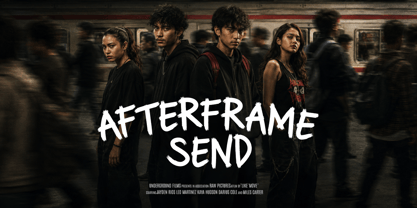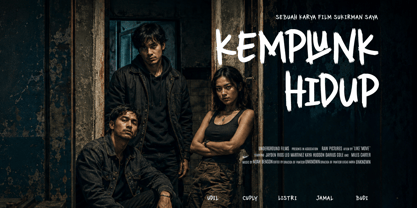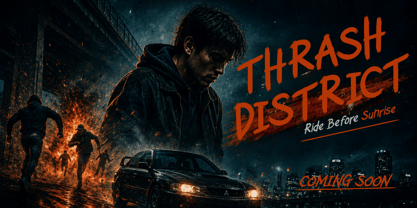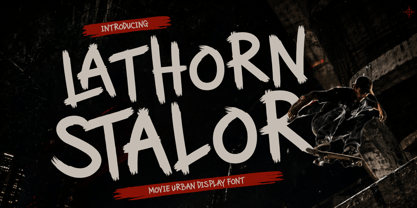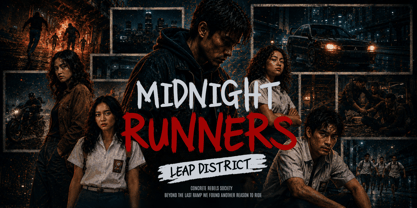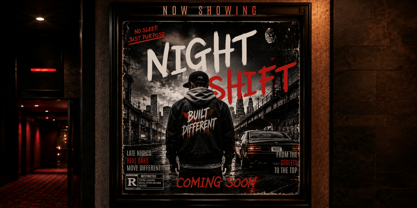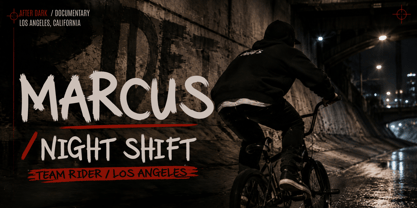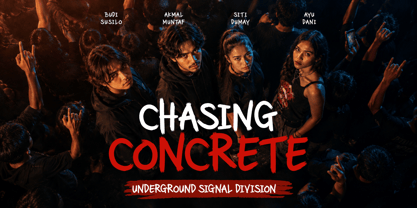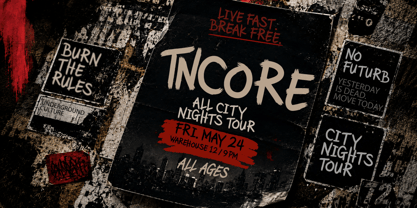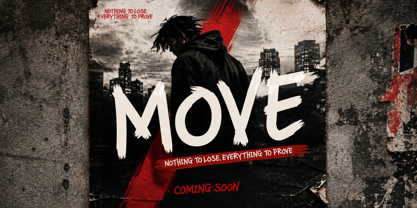
Lathorn Stalor
par Trabas Kriya
La famille de polices Lathorn Stalor a été conçue par Murozakul Akhsan et publiée par Trabas Kriya. Lathorn Stalor contient 1 styles. En savoir plus sur cette famille
Lathron Stalor – Movie Urban Font is a bold and raw display typeface designed to bring an authentic urban attitude to your creative projects. Inspired by underground cinema, street culture, extreme sports, and action-driven visuals, this font features expressive brush strokes and an energetic handcrafted character that instantly grabs attention.
Perfect for movie posters, film titles, action campaigns, urban branding, streetwear graphics, music visuals, trailer titles, event posters, and cinematic promotions. Lathron Stalor works especially well for projects that need a gritty, rebellious, and high-impact visual identity.
Whether you're designing an underground film poster, extreme sports documentary, street culture campaign, or dramatic title sequence, Lathron Stalor adds a distinctive handwritten edge that helps your typography stand out.